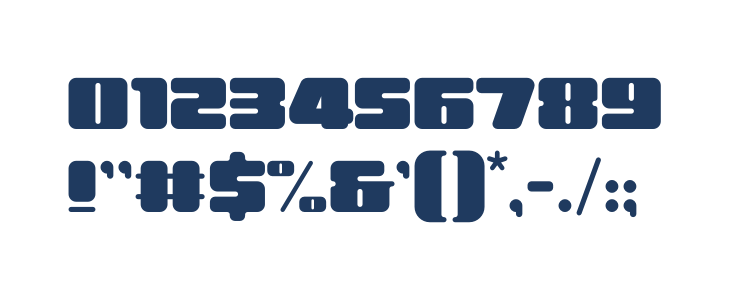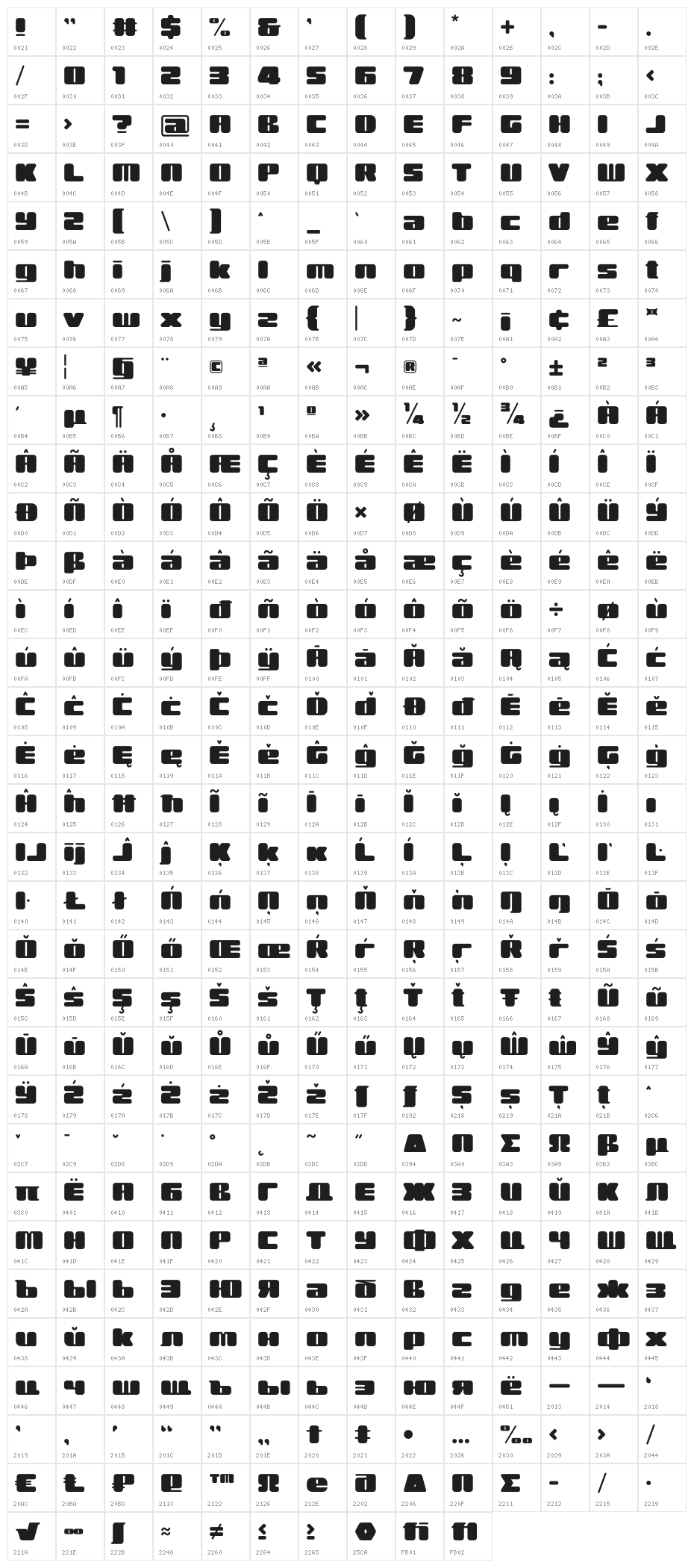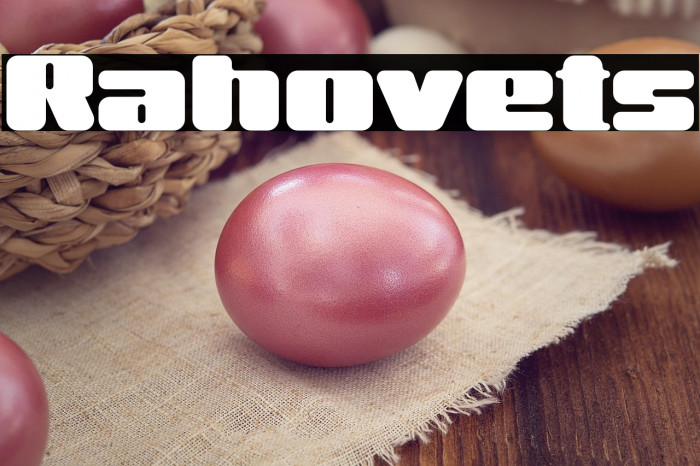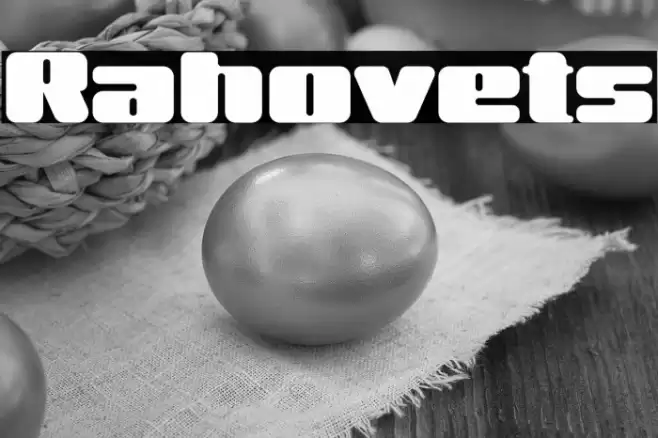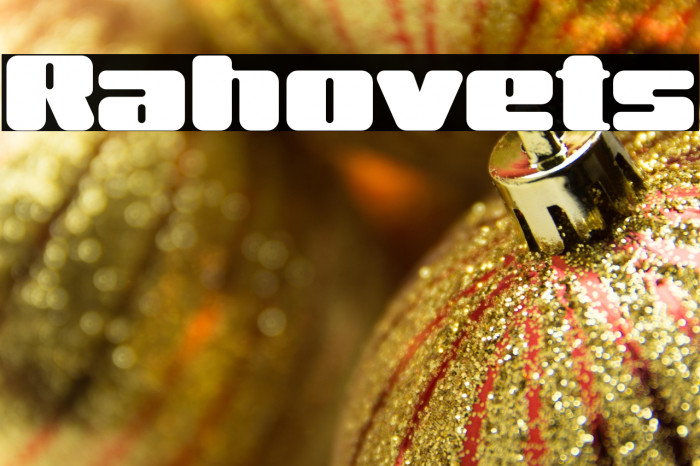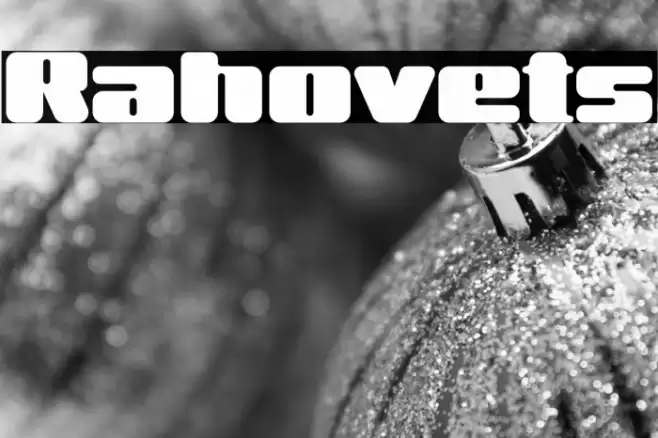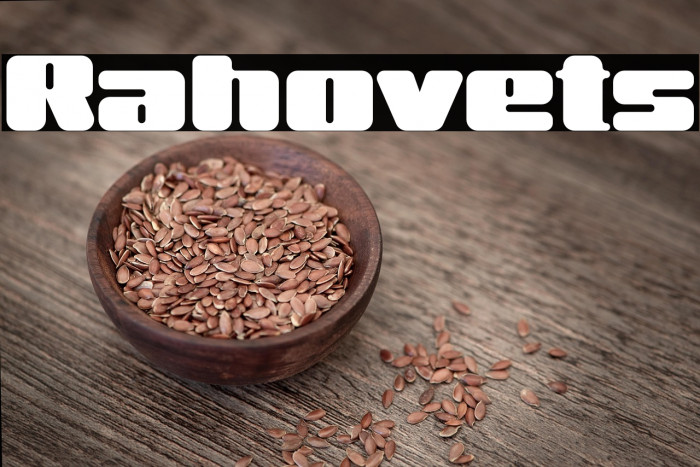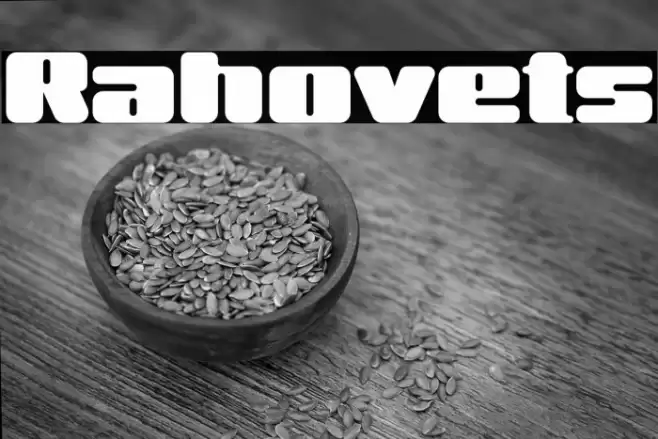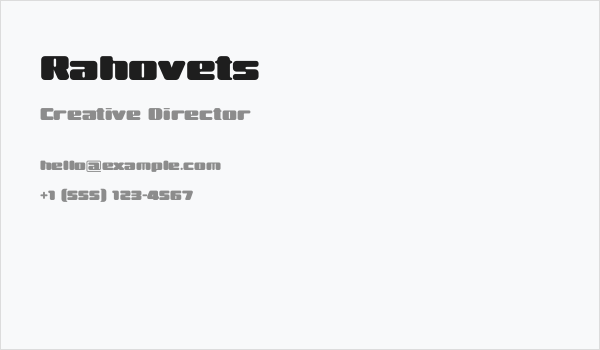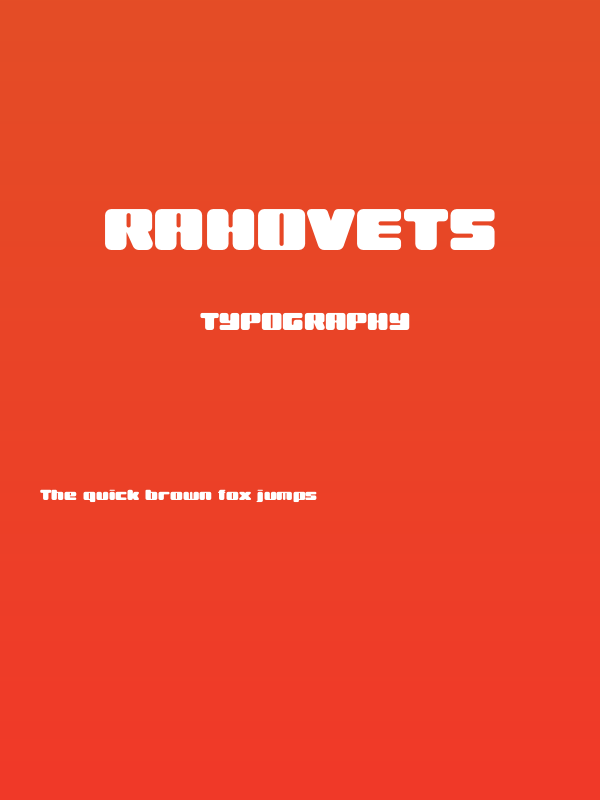
Rahovets Font
Rahovets Description
This font features a bold and robust design with a distinctly modern and geometric style. The characters are constructed with thick, uniform strokes, giving them a strong presence on the page. The rounded edges and uniform width contribute to a cohesive and harmonious appearance. The font's design is highly legible, making it suitable for various display purposes. Its boldness and unique style make it stand out, while the consistent character shapes ensure readability. The font includes a full set of uppercase and lowercase letters, numerals, and a variety of special characters, providing versatility for different design needs.